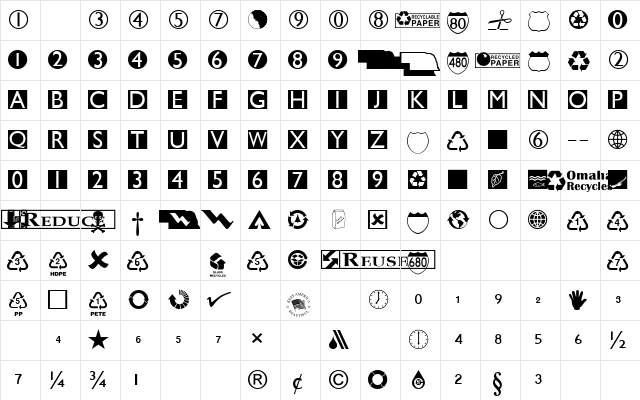
OmahaDings Regular Free Font
OmahaDings Regular
Design Context for OmahaDings
OmahaDings is a composed and adaptable typeface that performs quietly and consistently across a wide range of design contexts.